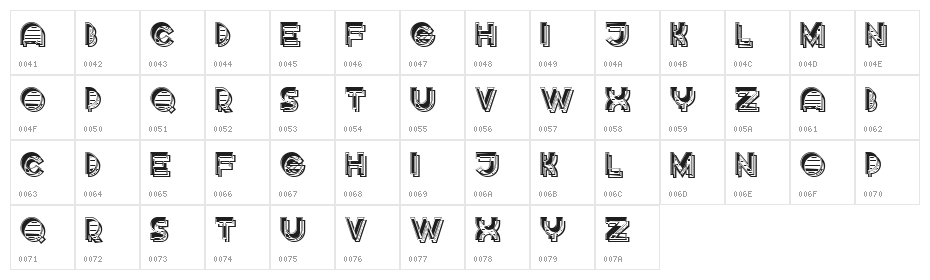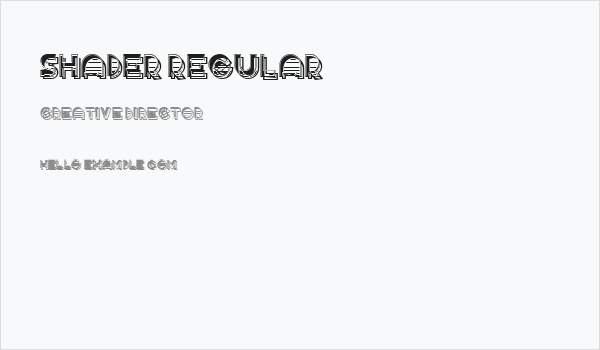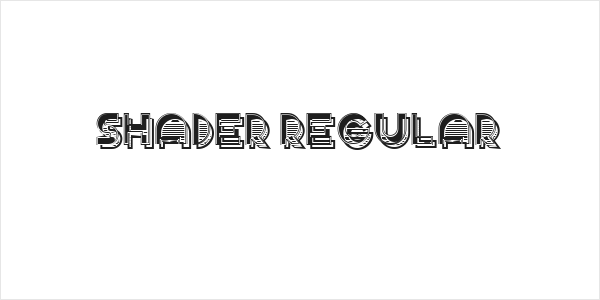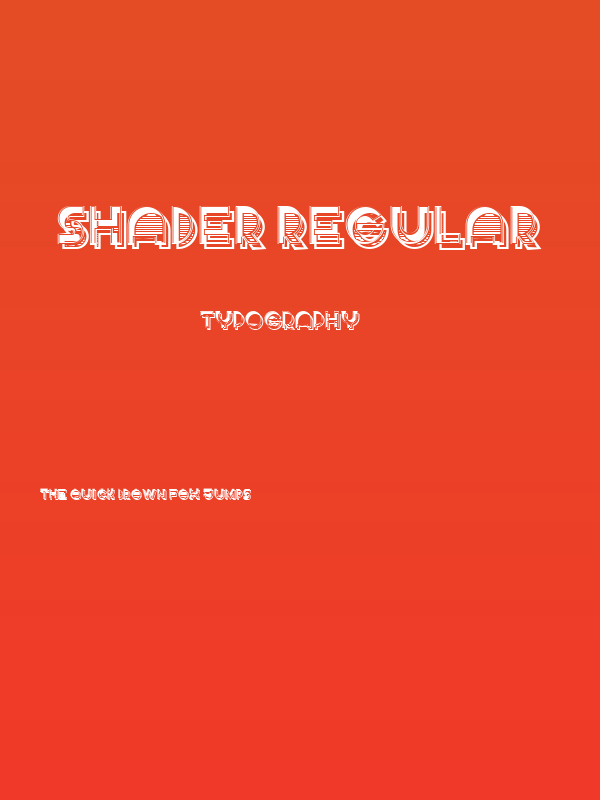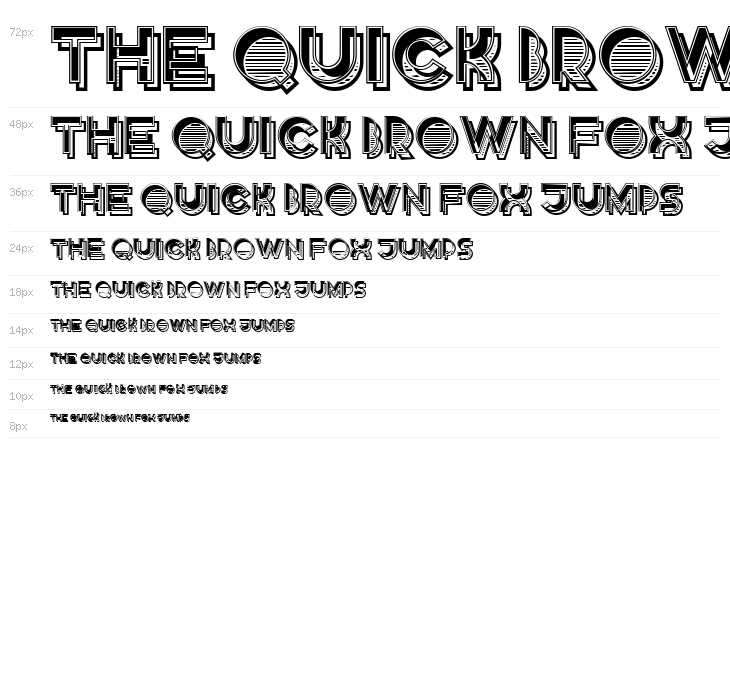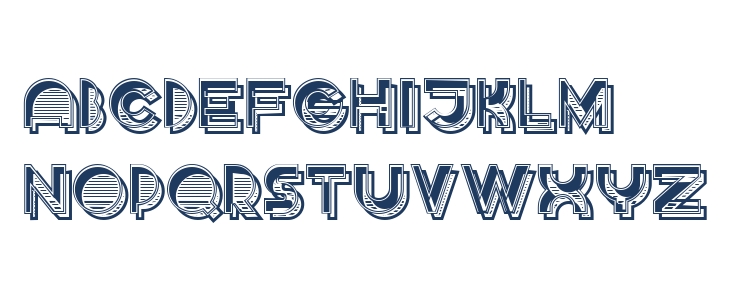
Shader Regular Font
Shader Regular Description
This font features a bold, decorative style with intricate line work and shading that creates a three-dimensional effect. Each character is designed with multiple layers of outlines and internal stripes, giving it a dynamic and eye-catching appearance. The uppercase letters are particularly striking, with a geometric and structured form that enhances their visual impact. The font's design is consistent across all characters, maintaining a cohesive look that is both modern and artistic. Its unique style makes it ideal for projects that require a strong visual presence.
| Proposed Projects | Ideal for posters, logos, branding, and any design project that requires a bold and artistic touch. |